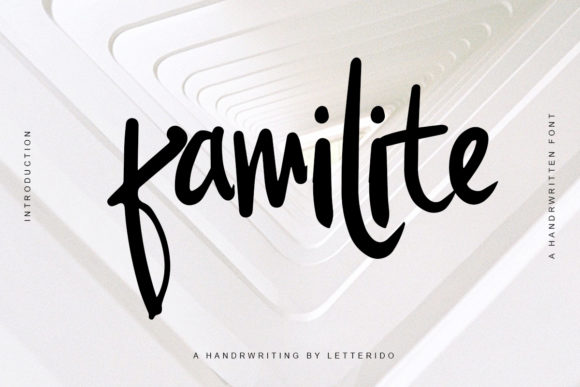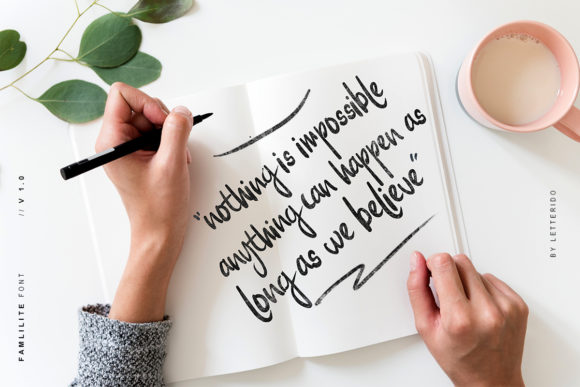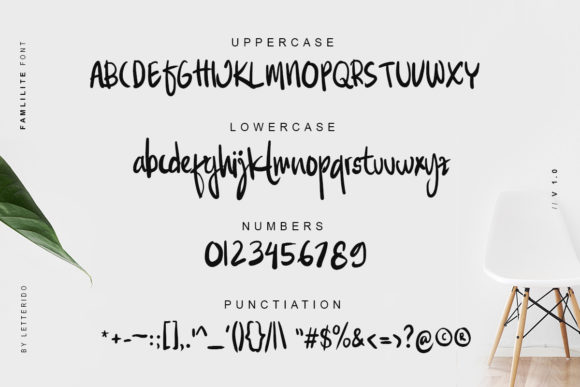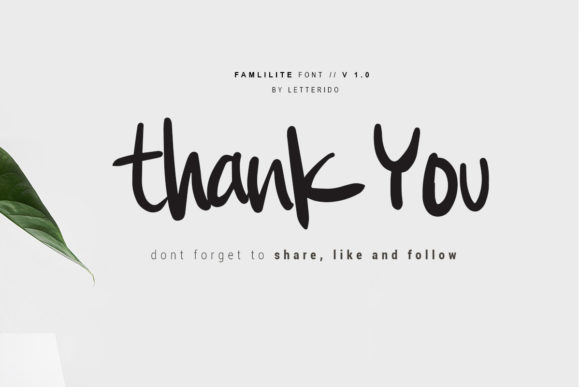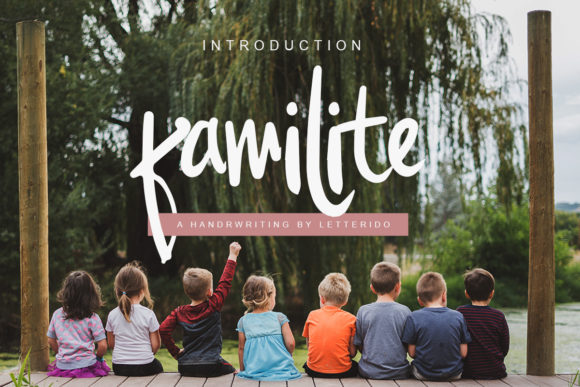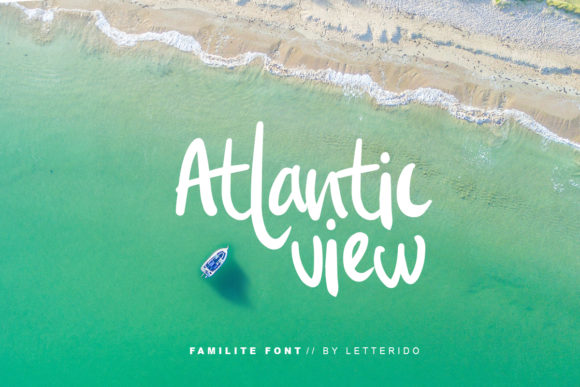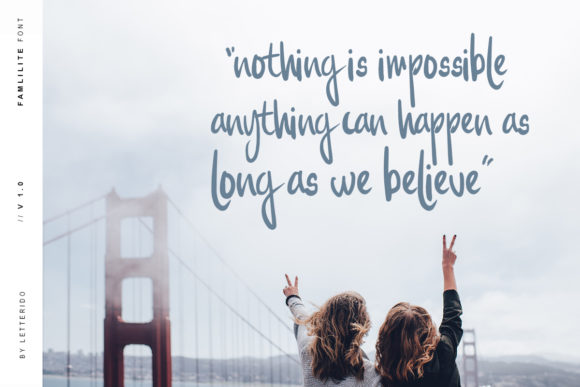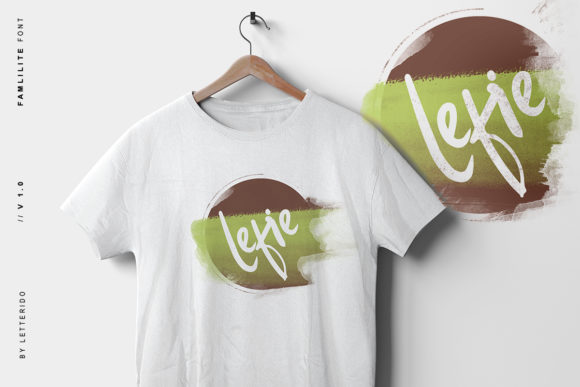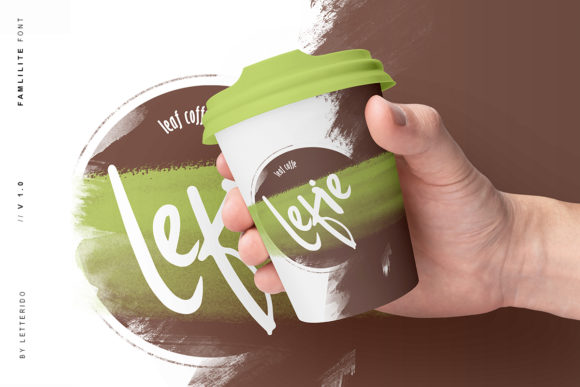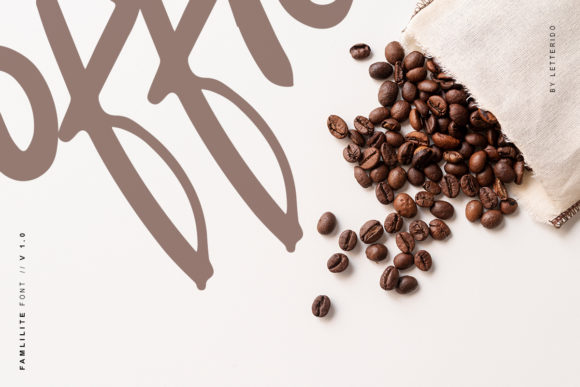
HomeScript FontsFamilite Font Script Fonts Familite Font FacebookXPinterestWhatsApp Familite Font Poster 2 Familite Font Poster 3 Familite Font Poster 4 Familite Font Poster 5 Familite Font Poster 6 Familite Font Poster 7 Familite Font Poster 8 Familite Font Poster 9 Familite Font Poster 10 Familite Font Poster 11 Familite Font Poster 12 About Familite Font Familite is a stunning script with a modern look. It will turn any design idea into a true standout! DOWNLOAD ON CREATIVE FABRICAThis font is sold and delivered by Creative Fabrica. Font Canyon may earn a commission if you buy through this link. People also explored Rexlia Moody Star Font Antartika Duo Font Ecatherina Font Kilton Blockcut Font Shalsa Bella Font YWFT Burtonian Guest Check 605 0 TagsFamilite Font Previous articleBantai Lhanju FontNext articleKalamaya Font LEAVE A REPLY Cancel reply Comment: Please enter your comment! Name:* Please enter your name here Email:* You have entered an incorrect email address! Please enter your email address here Website: Save my name, email, and website in this browser for the next time I comment. Personal Use Free Triangular Curves Personal Use Free Read more about this font Quickline Personal Use Free Read more about this font Cute Butterfly Personal Use Free Read more about this font Cataclysmo Personal Use Free Read more about this font BLOG How to Cut Any Font on Cricut: Convert a Font to SVG (Free) Turn any font into a clean SVG so it cuts crisp on Cricut - a quick 3-step workflow using a free font-to-SVG tool. Top 10 Handwritten Fonts That Elevate Your Designs Using Fonts in Digital Marketing: Tips to Strengthen Your Brand Identity Elegant Wedding Invitation Fonts – Handwritten & Script Fonts